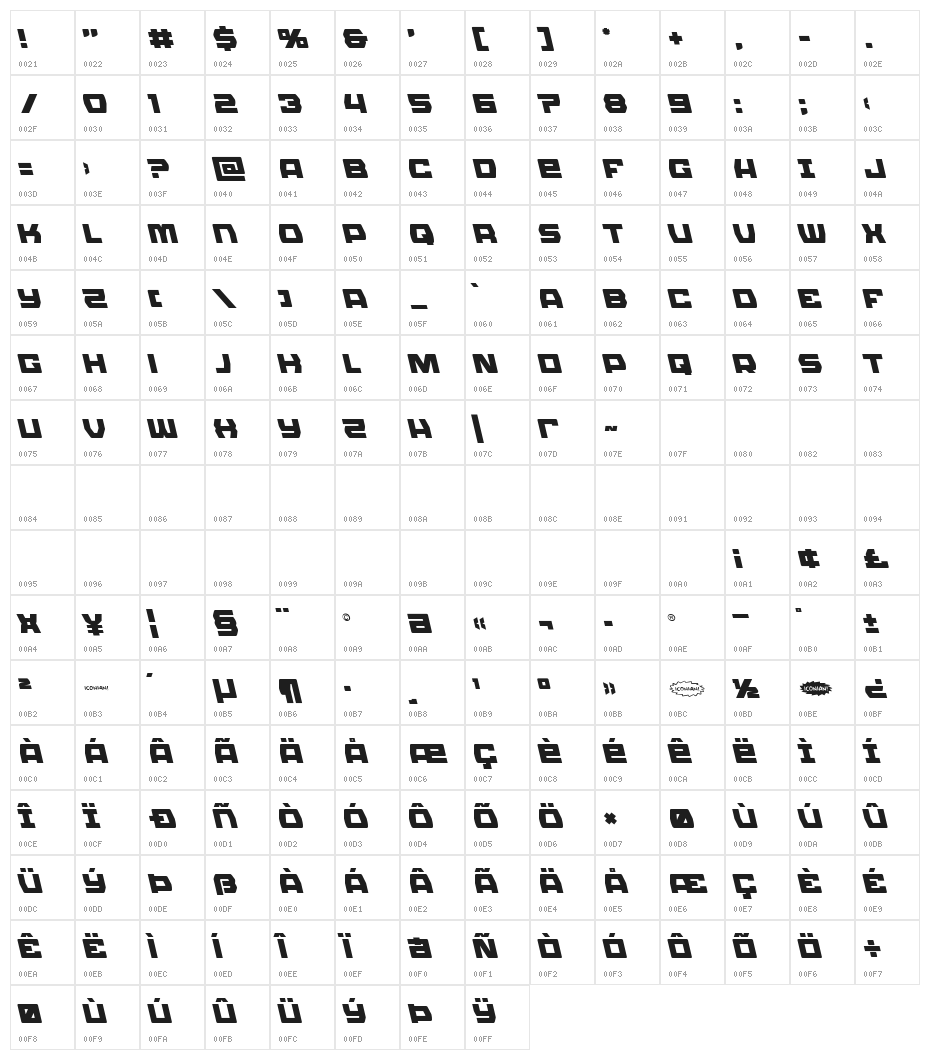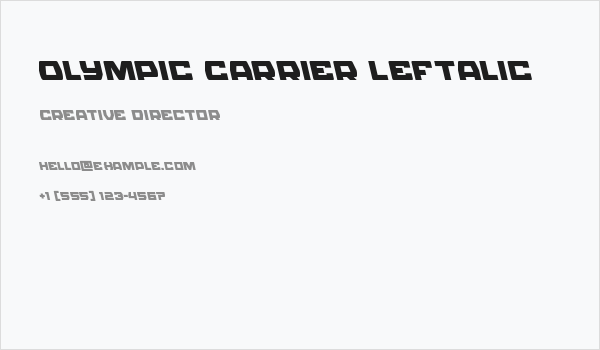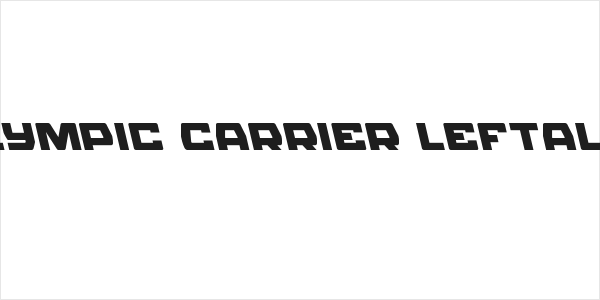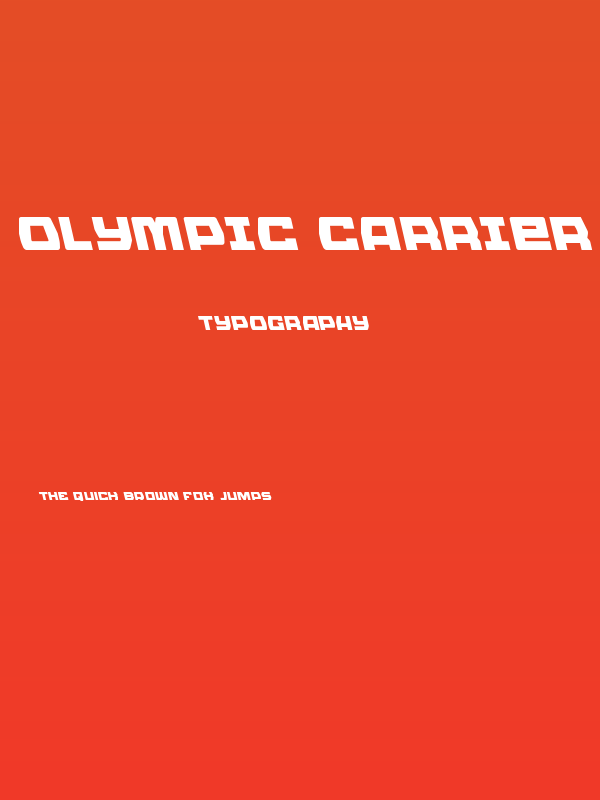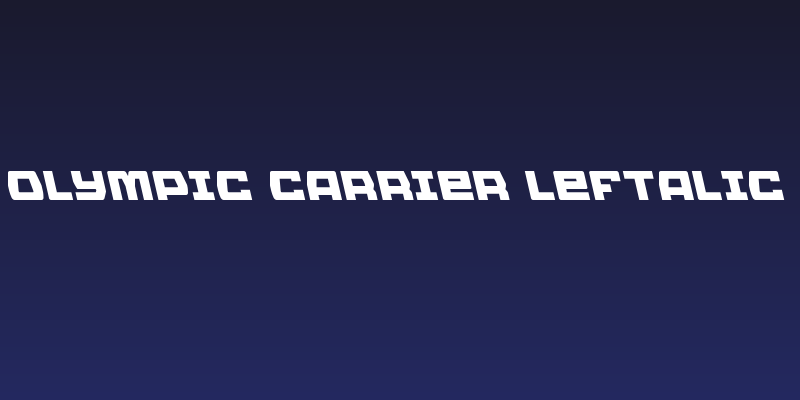
Olympic Carrier Leftalic Font
Olympic Carrier Leftalic Description
This font features a bold, angular design with a futuristic and dynamic appearance. The characters are constructed with thick, block-like strokes that create a strong visual impact. The uppercase letters are particularly striking, with sharp edges and a slightly slanted orientation that suggests movement and speed. The numbers and special characters maintain this bold style, ensuring consistency across all glyphs. The overall design is reminiscent of digital or technological themes, making it suitable for projects that require a modern and assertive typeface.
| Use Case | Logos, Headlines |
| Proposed Projects | Ideal for technology branding, video game titles, sports team logos, and sci-fi themed designs. |